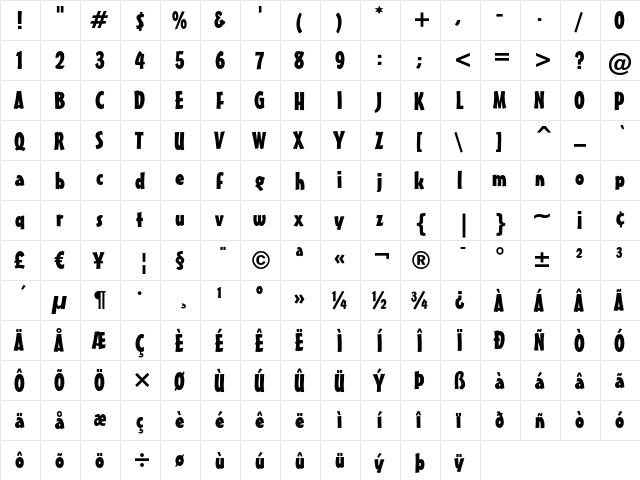
Mister Earl Bold
Design Context for Mister Earl Typeface
Mister Earl takes a measured approach to typography — its balanced proportions and neutral character make it a reliable workhorse for both digital and print work. The heavy weight commands attention and anchors typographic hierarchies.